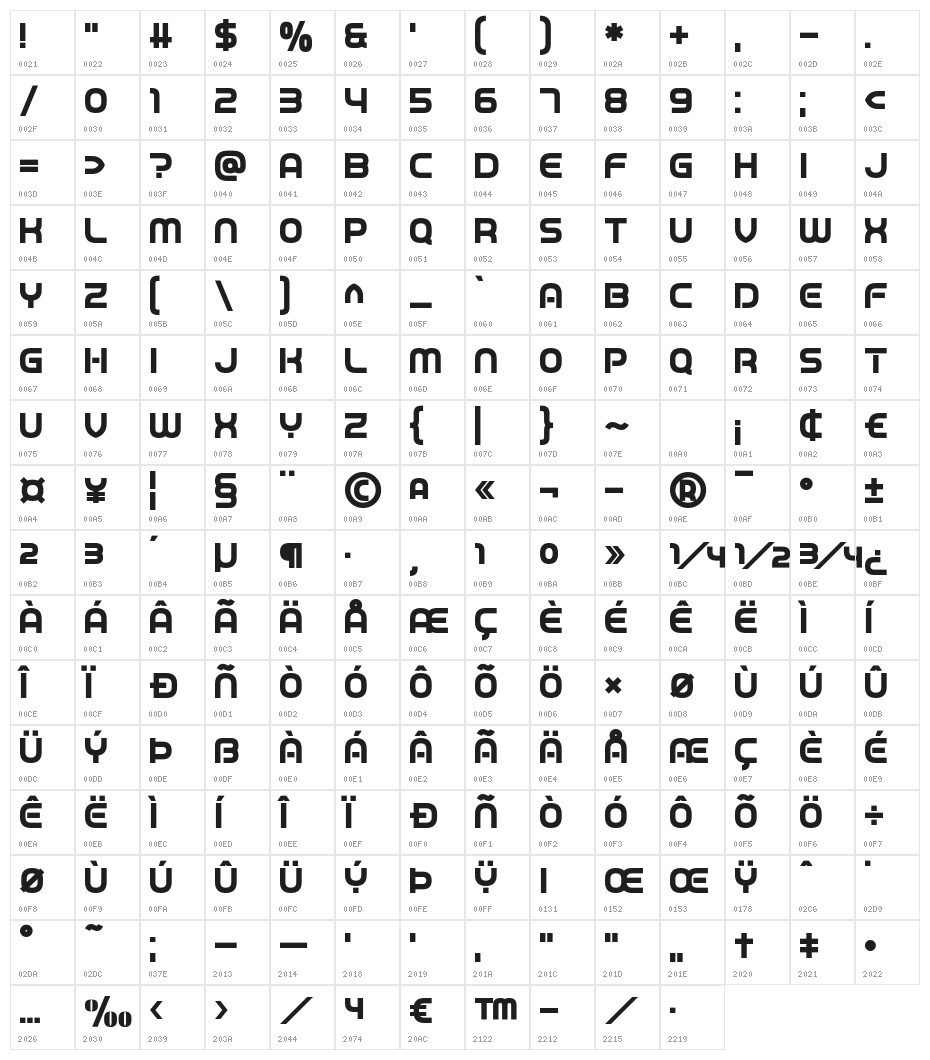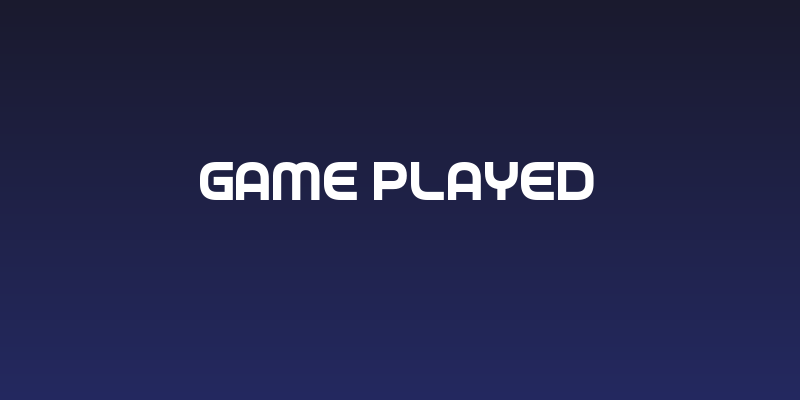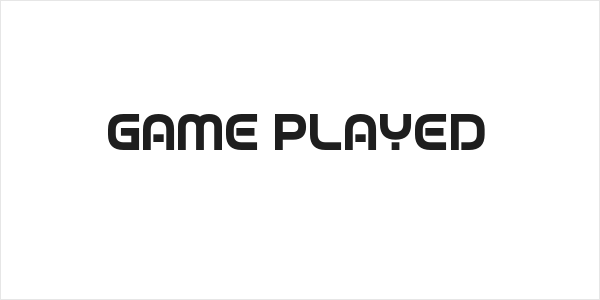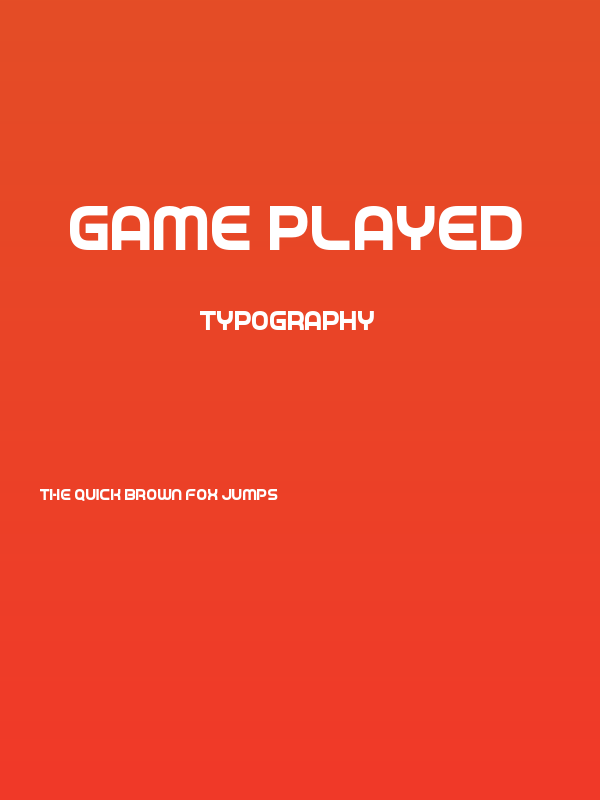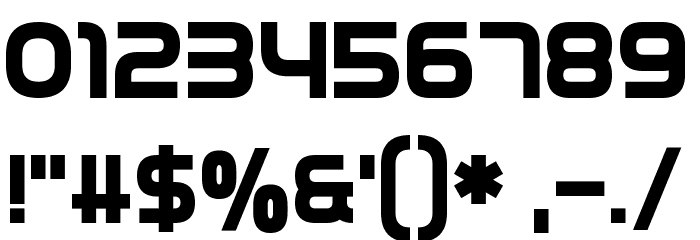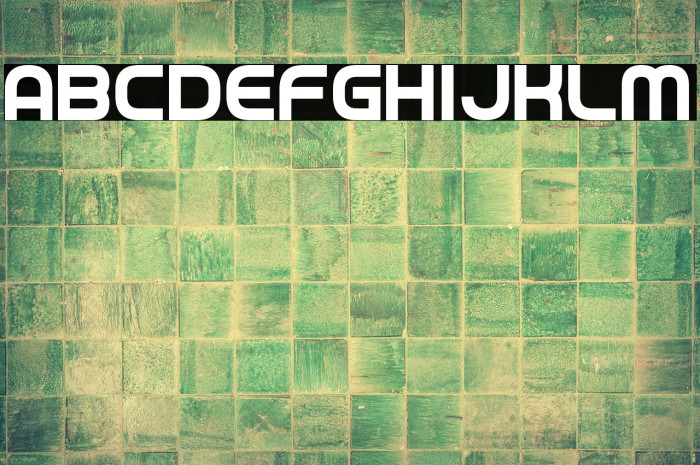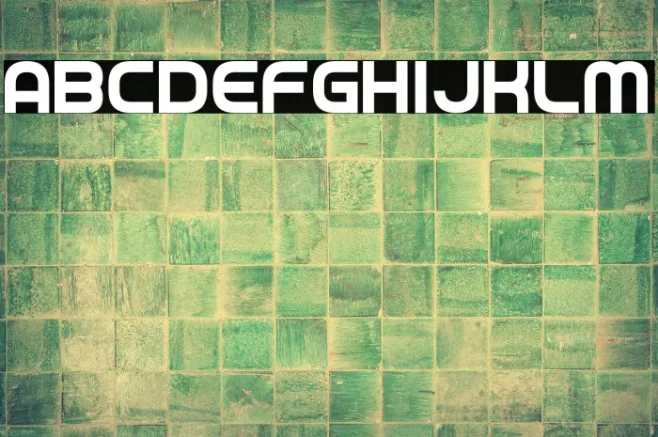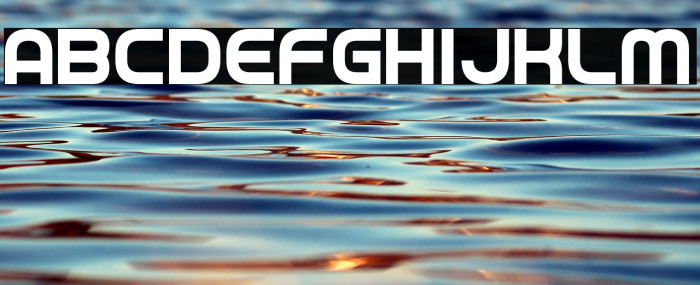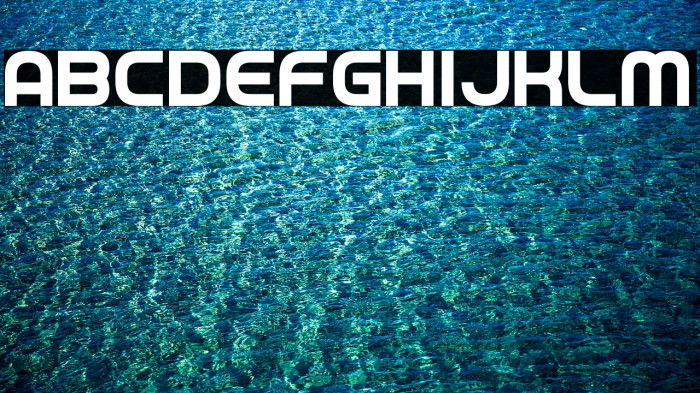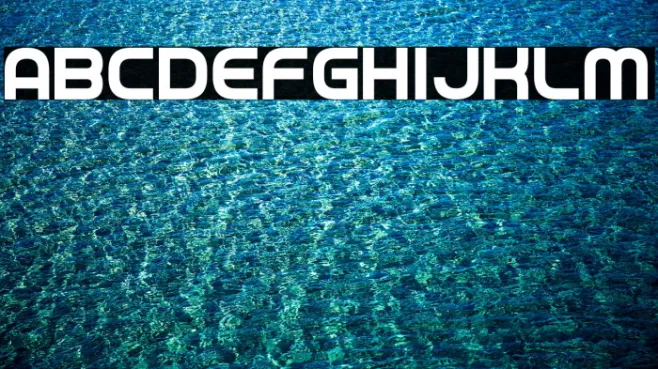
Game Played Font
Game Played Description
This font features a bold, geometric design with rounded edges, giving it a modern and futuristic appearance. The characters are uniform in width, contributing to a clean and structured look. The uppercase and lowercase letters maintain a consistent style, with the lowercase slightly smaller but equally bold. The numerals are distinct and easily readable, matching the overall aesthetic of the alphabet characters. Special characters are well-integrated, maintaining the font's cohesive style. The design is versatile, suitable for various digital and print applications where a contemporary and impactful look is desired.
| Proposed Projects | Ideal for video game titles, tech branding, modern posters, and digital interfaces. |